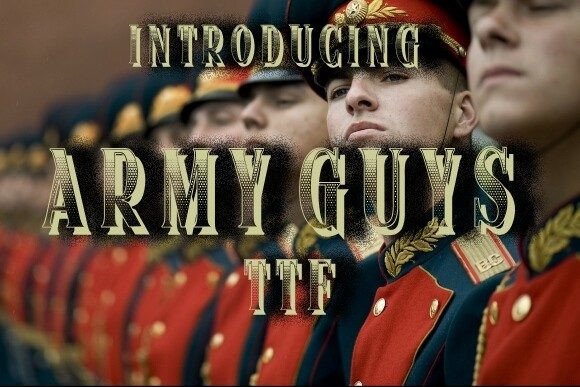
Army Guys Font: Elevate Your Designs with a Fancy 3D Twist
Are you tired of using the same old fonts in your designs? Do you want to add a touch of excitement and uniqueness to your posters, flyers, and other creative projects? Look no further than the Army Guys Font, a fancy 3D font that is sure to take your designs to the next level.
What is Army Guys Font?
Army Guys Font is a specially crafted font that boasts a stunning 3D effect, giving it a bold and eye-catching appearance. This font is perfect for designers and crafters who want to add a touch of sophistication and glamour to their work. With its unique and stylish design, Army Guys Font is sure to make your projects stand out from the crowd.
Key Features of Army Guys Font
- Fancy 3D Effect: The Army Guys Font features a stunning 3D effect that gives it a bold and eye-catching appearance.
- Versatility: This font can be used on a wide range of design projects, including posters, flyers, brochures, and more.
- High-Quality Design: The font is designed with high-quality and precision, ensuring that it looks great in any design.
- Pair it with Other Fonts: Army Guys Font looks great when paired with other fonts, such as sans-serif fonts like Arial or Helvetica.
- Experiment with Colors: The 3D effect of the font looks great in a variety of colors, so don’t be afraid to experiment and find the perfect color scheme for your design.
- Use it for Headings: Army Guys Font is perfect for headings and titles, as it adds a touch of sophistication and glamour to your design.
Benefits of Using Army Guys Font
There are many benefits to using Army Guys Font in your designs. Here are a few:
- Unique and Eye-Catching: The 3D effect of the font makes it unique and eye-catching, ensuring that your designs stand out from the crowd.
- Increased Professionalism: The font’s high-quality design and 3D effect give it a professional and polished look, making it perfect for business and marketing materials.
- Easy to Read: Despite its 3D effect, the font is easy to read, making it perfect for designs where you want to make a statement but still communicate effectively.
Who Can Use Army Guys Font?
Army Guys Font is perfect for a wide range of designers and crafters, including:
- Graphic Designers: Graphic designers can use Army Guys Font to add a touch of sophistication and glamour to their designs.
- Marketing and Advertising Professionals: Marketing and advertising professionals can use the font to create eye-catching and effective marketing materials.
- Crafters and Makers: Crafters and makers can use Army Guys Font to add a touch of personality and style to their handmade projects.